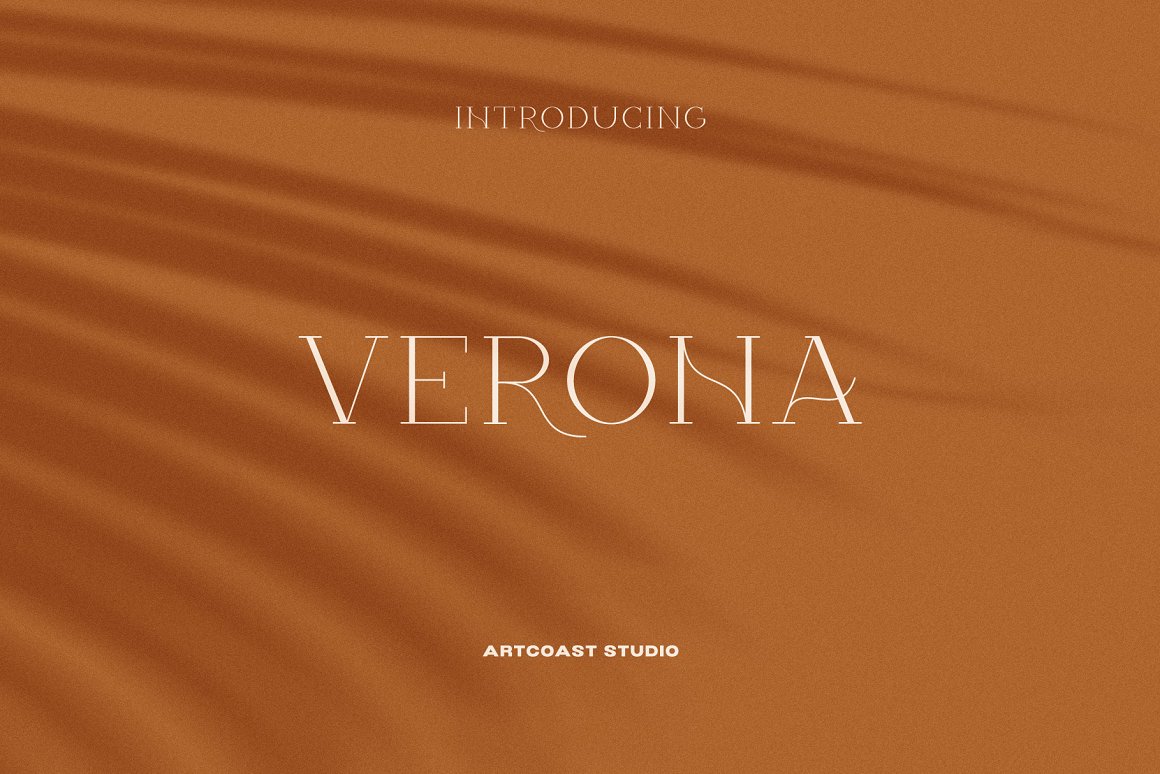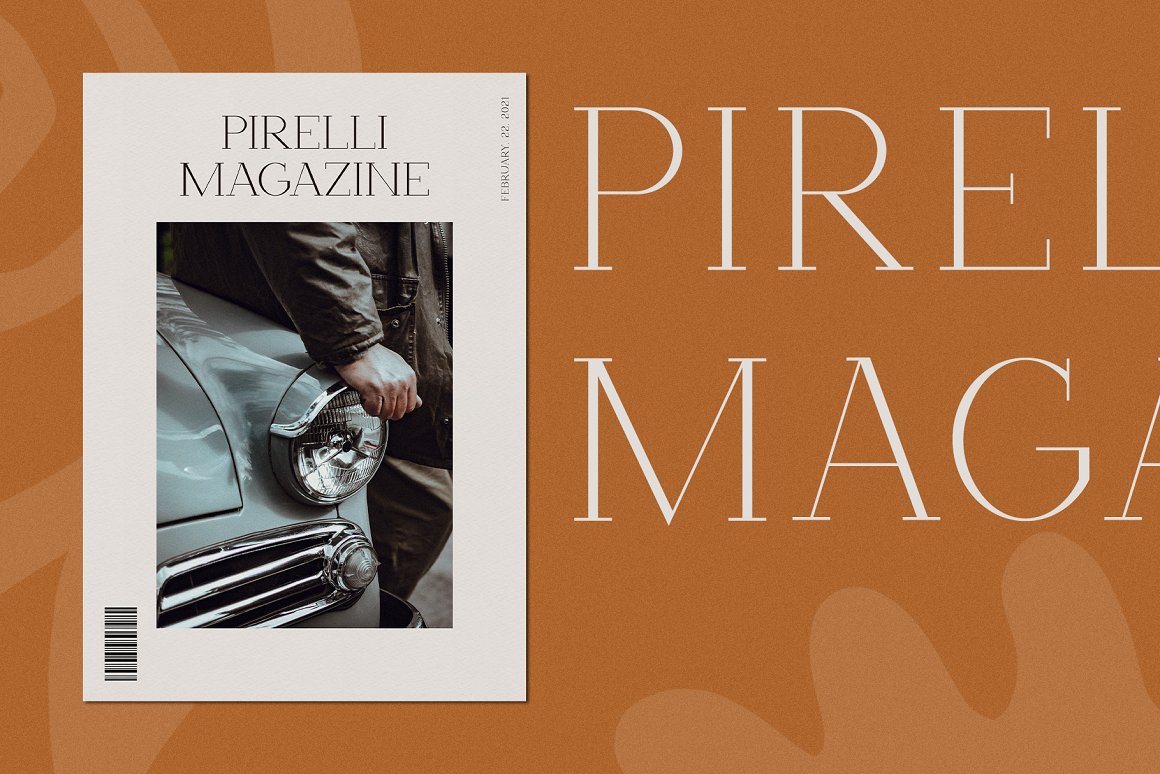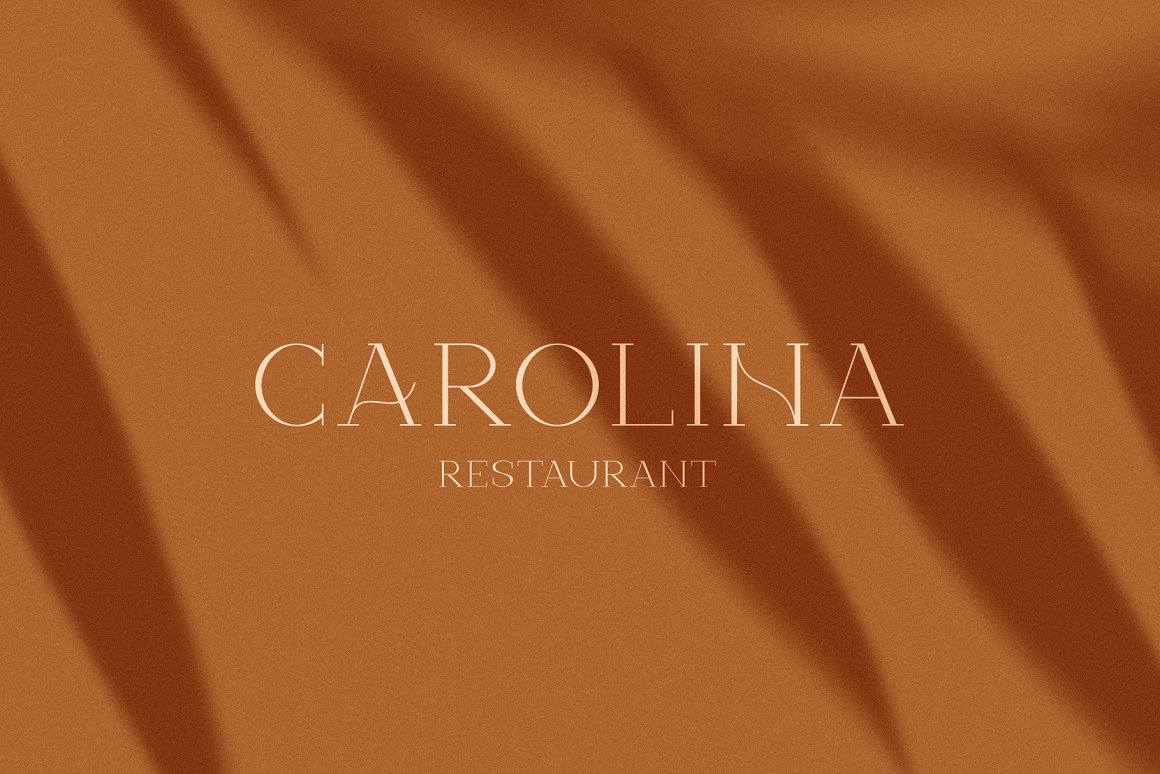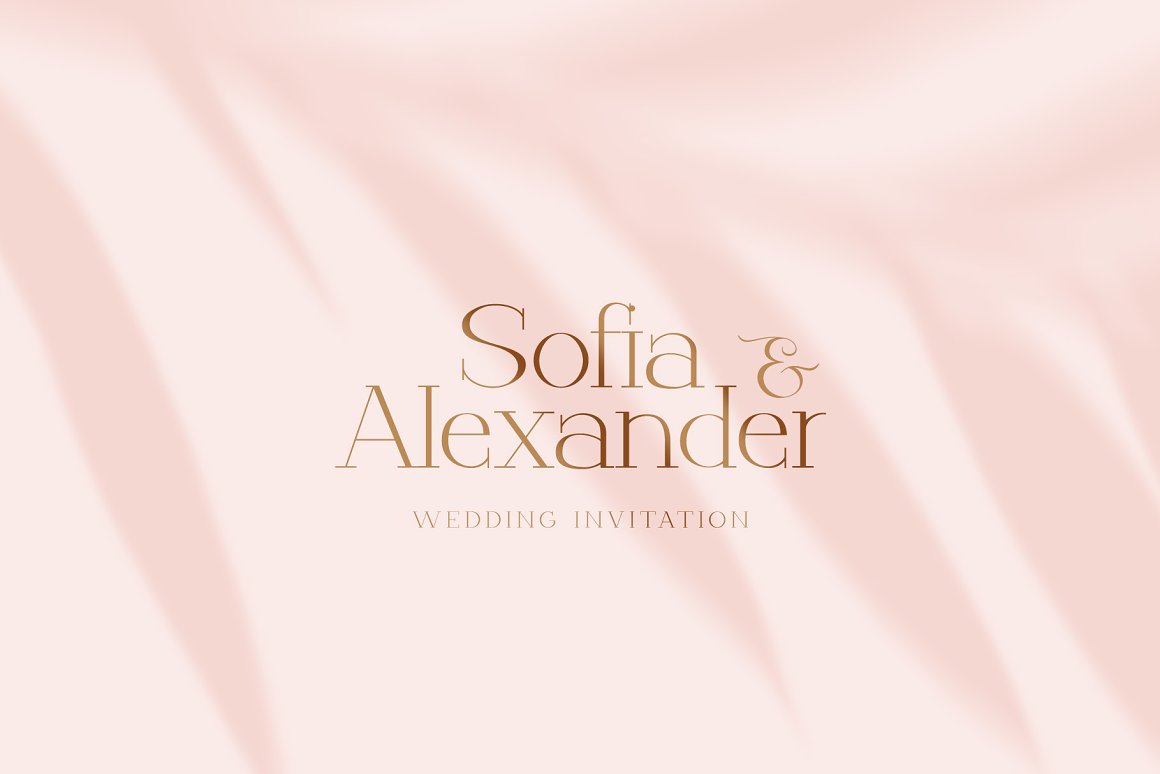
Verona – elegant display serif with beautiful contrast. Designed for fashion-themed projects, suitable for creating elegant, chic, lifestyle design such as logos, title, and magazine, and more.